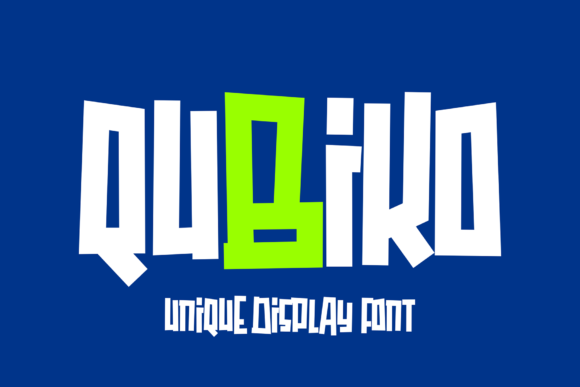
Welcome to the realm of Qubiko Font, a display typeface that exudes abstract elegance and creative brilliance. This extraordinary creation by figuree studio transcends the boundaries of ordinary fonts, inviting you to embrace a world of eclectic beauty and endless possibilities.
Qubiko Font isn't just a collection of letters; it's an artistic expression that dances on the page, captivating your audience with its playful spirit and conceptual charm. Its unique design, a symphony of abstract shapes, commands attention in any context, transforming your words into visually stunning masterpieces.
With Qubiko Font, you'll embark on a typographic adventure where imagination reigns supreme. Whether you're crafting logos that demand attention, designing captivating posters that ignite conversations, or creating social media graphics that make your brand shine, Qubiko Font is your infallible companion.
Step into a realm where creativity knows no bounds, where your designs pulse with life and originality. Let Qubiko Font be your artistic partner, the catalyst that ignites your imagination and elevates your designs to new heights. Embrace the power of visual storytelling, and watch as your creations captivate audiences and leave lasting impressions.
Qubiko Font is more than just a font; it's a gateway to a world of boundless creativity. Its conceptual essence and abstract beauty will transform your designs into captivating works of art. Experience the joy of creating with a font that inspires, excites, and empowers you to reach new creative zeniths.
Don't settle for ordinary fonts; embrace the extraordinary with Qubiko Font. As you explore its limitless potential, you'll discover a font that not only enhances your designs but also ignites your passion for creativity. Qubiko Font is an investment in your creative journey, a font that will inspire you for years to come.
Embark on this typographic odyssey today, and let Qubiko Font redefine the boundaries of your creativity. Discover the joy of designing with a font that speaks to your soul, a font that transforms your words into captivating visual narratives. With Qubiko Font, your designs will radiate with originality, leaving an indelible mark on the world.